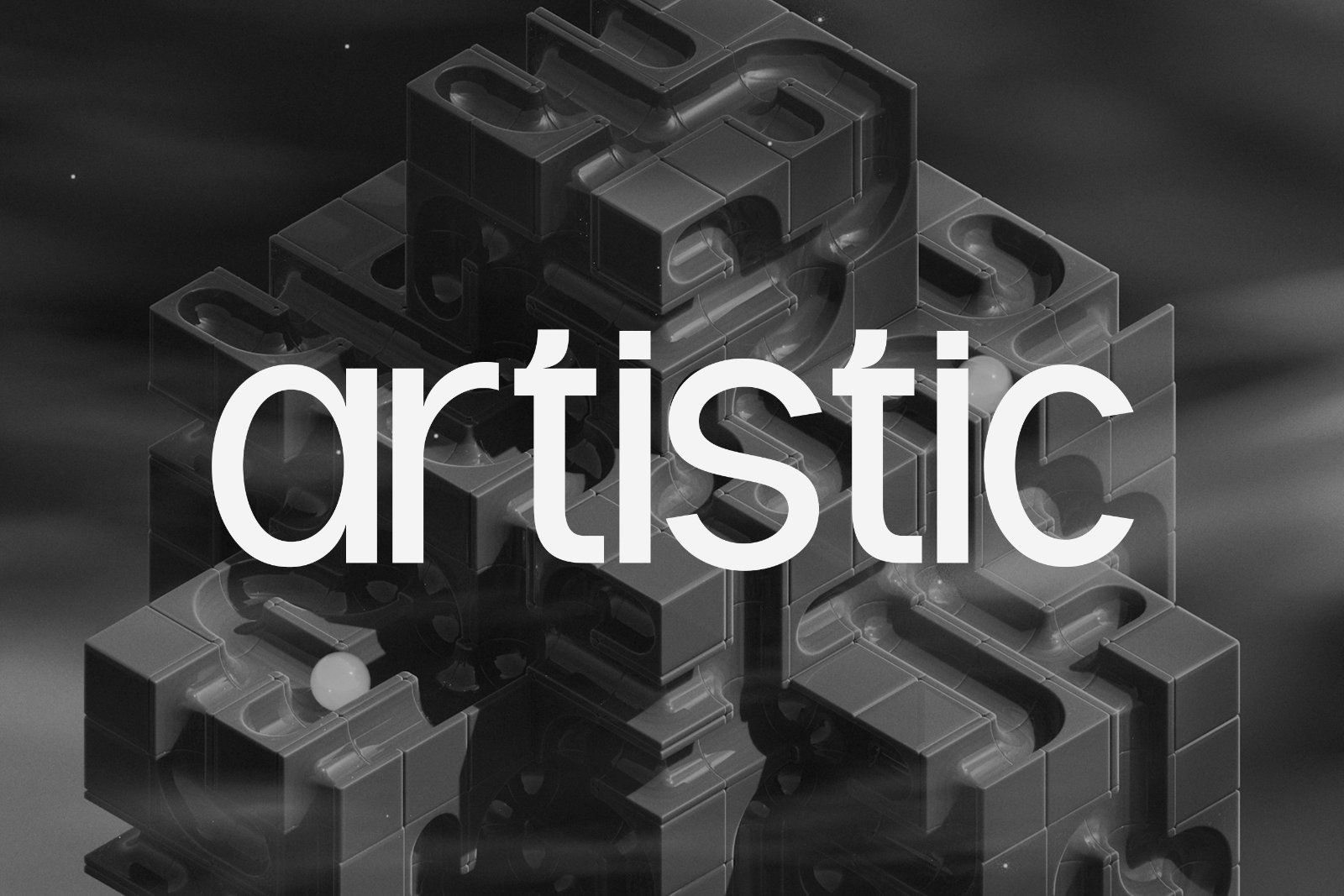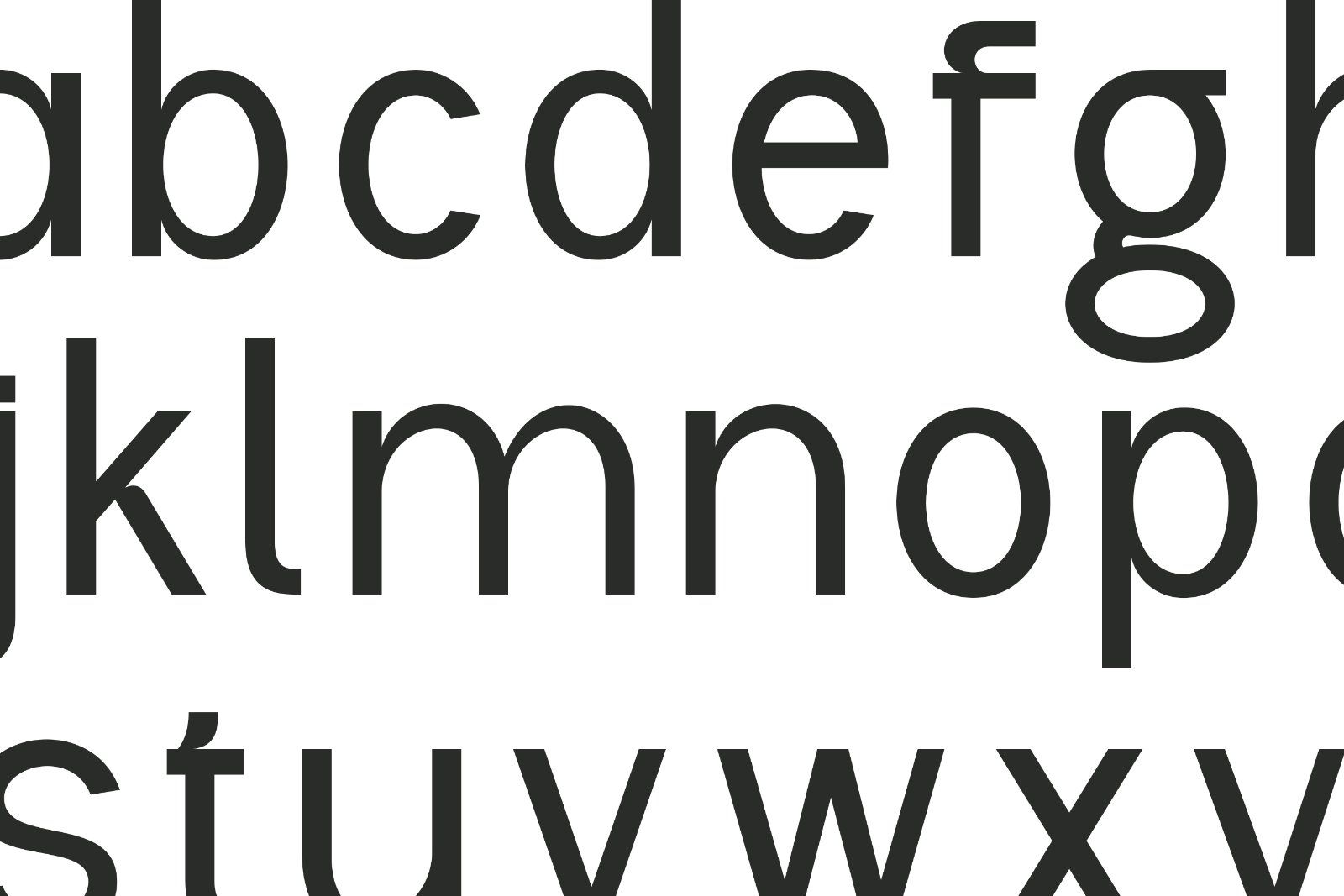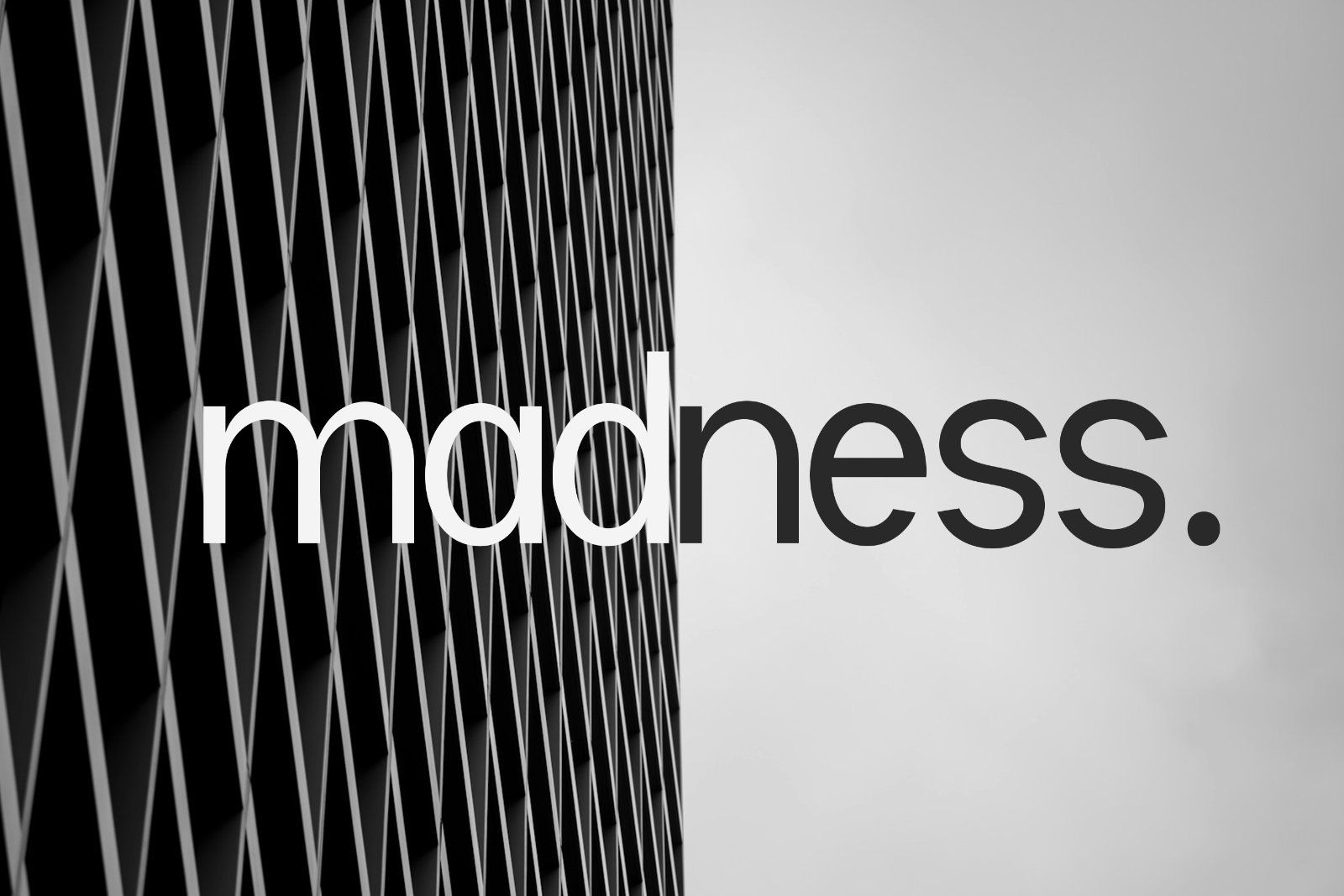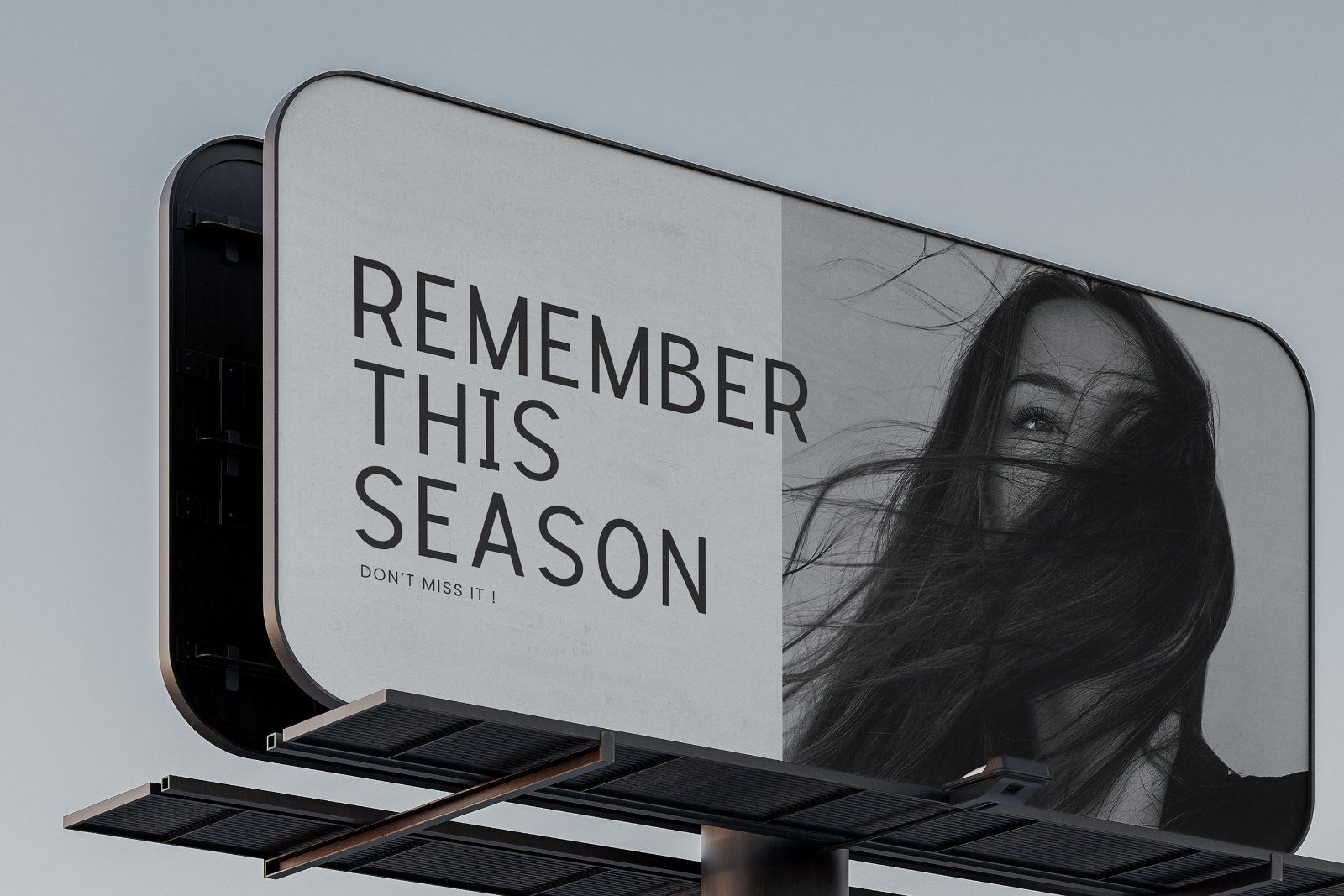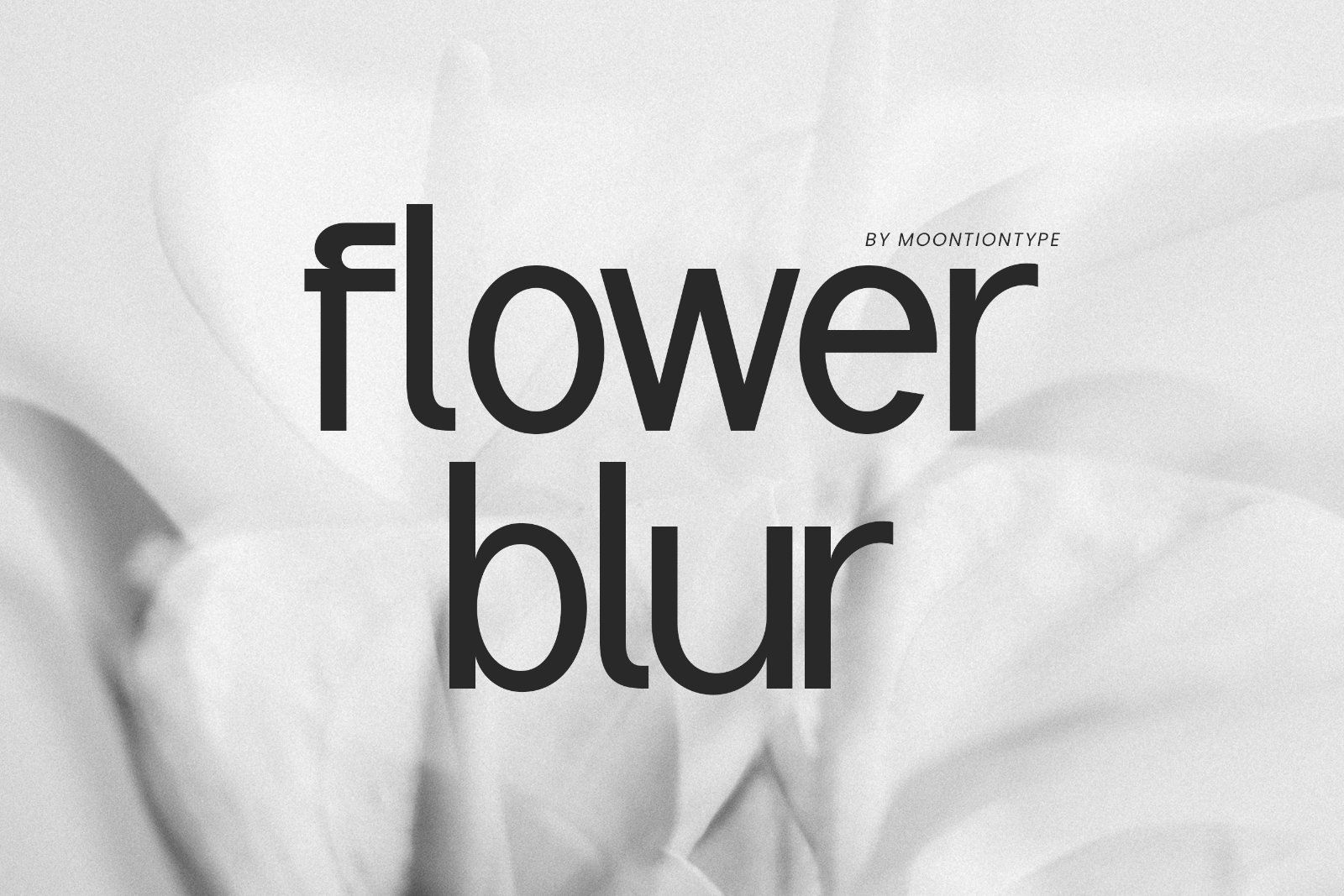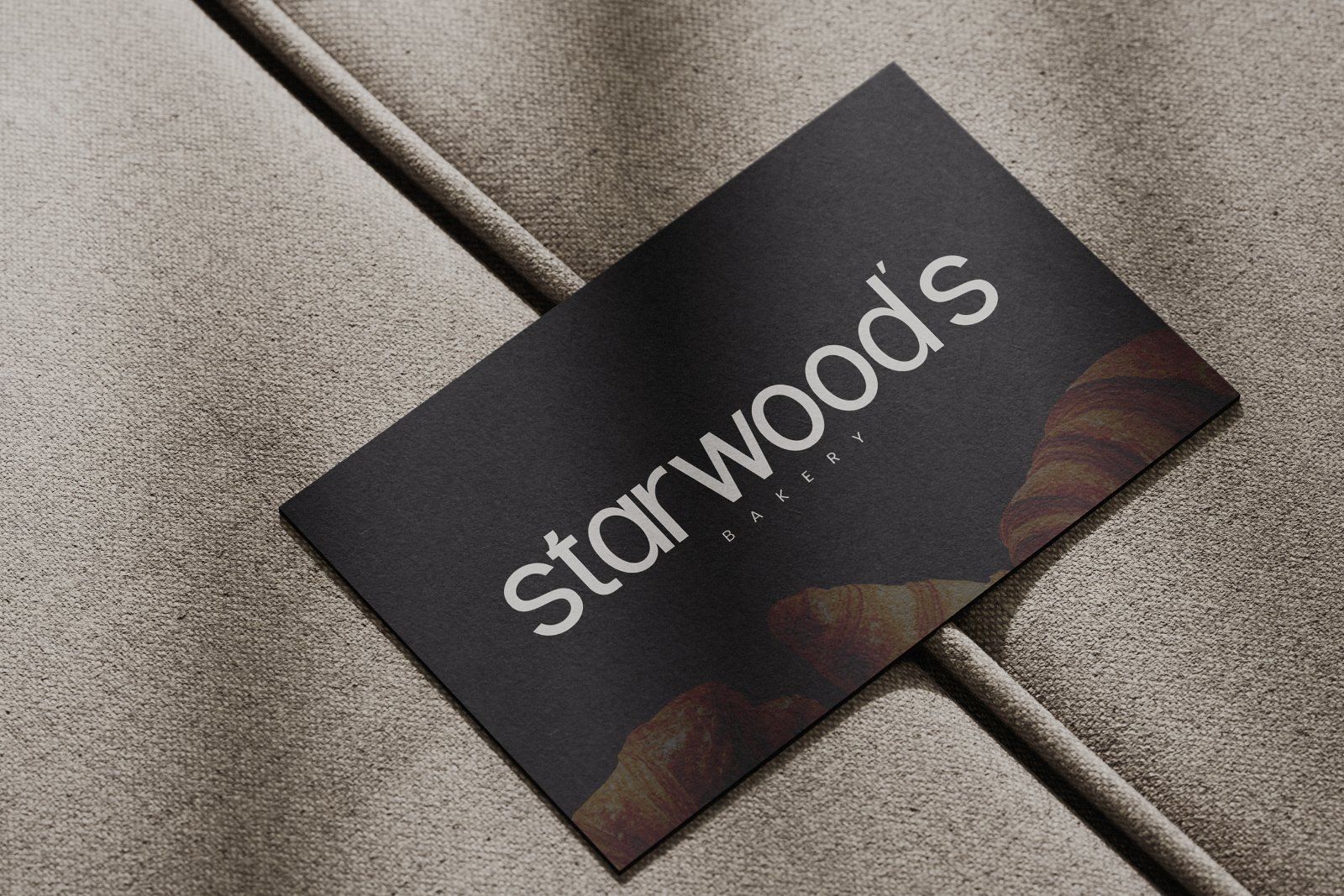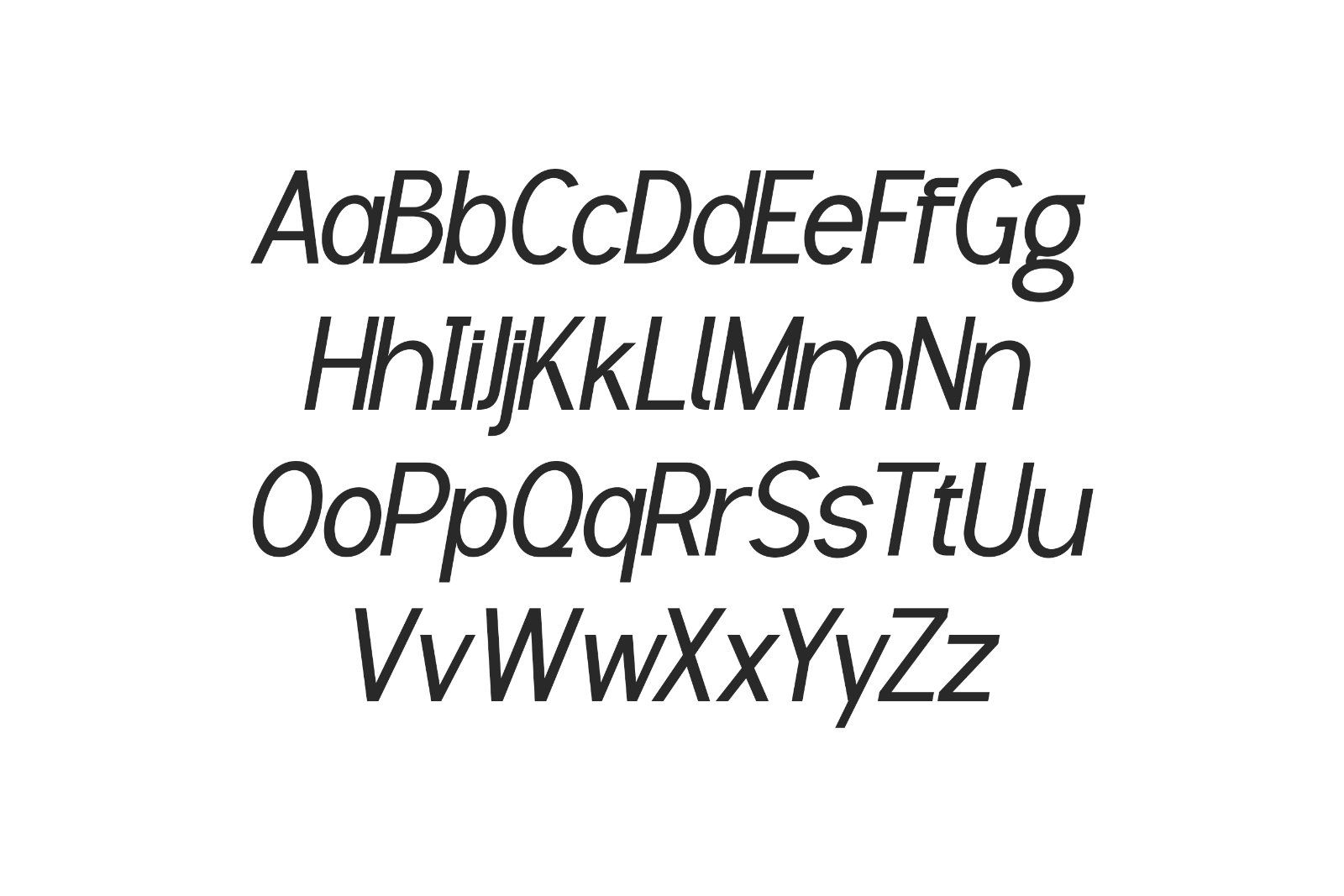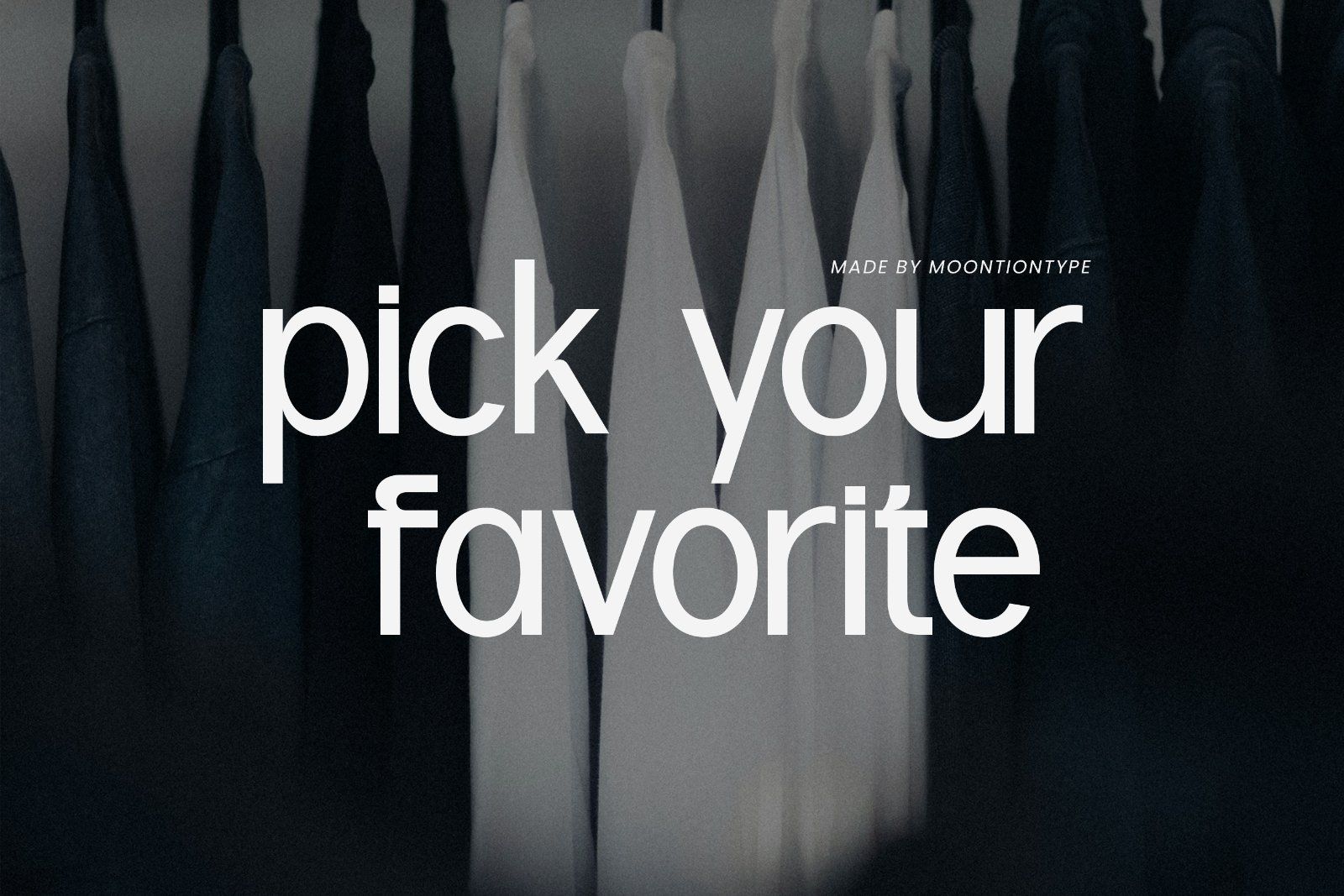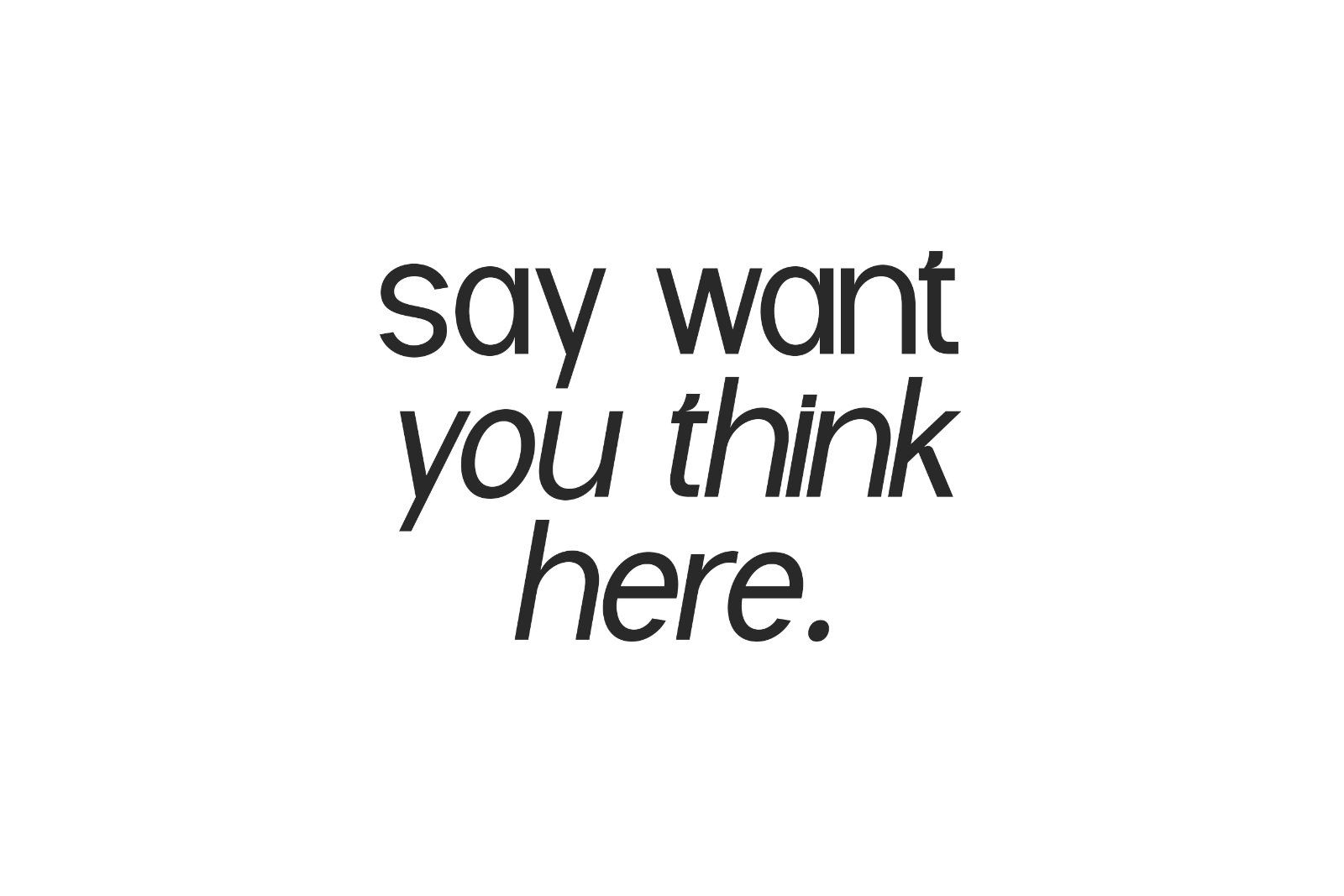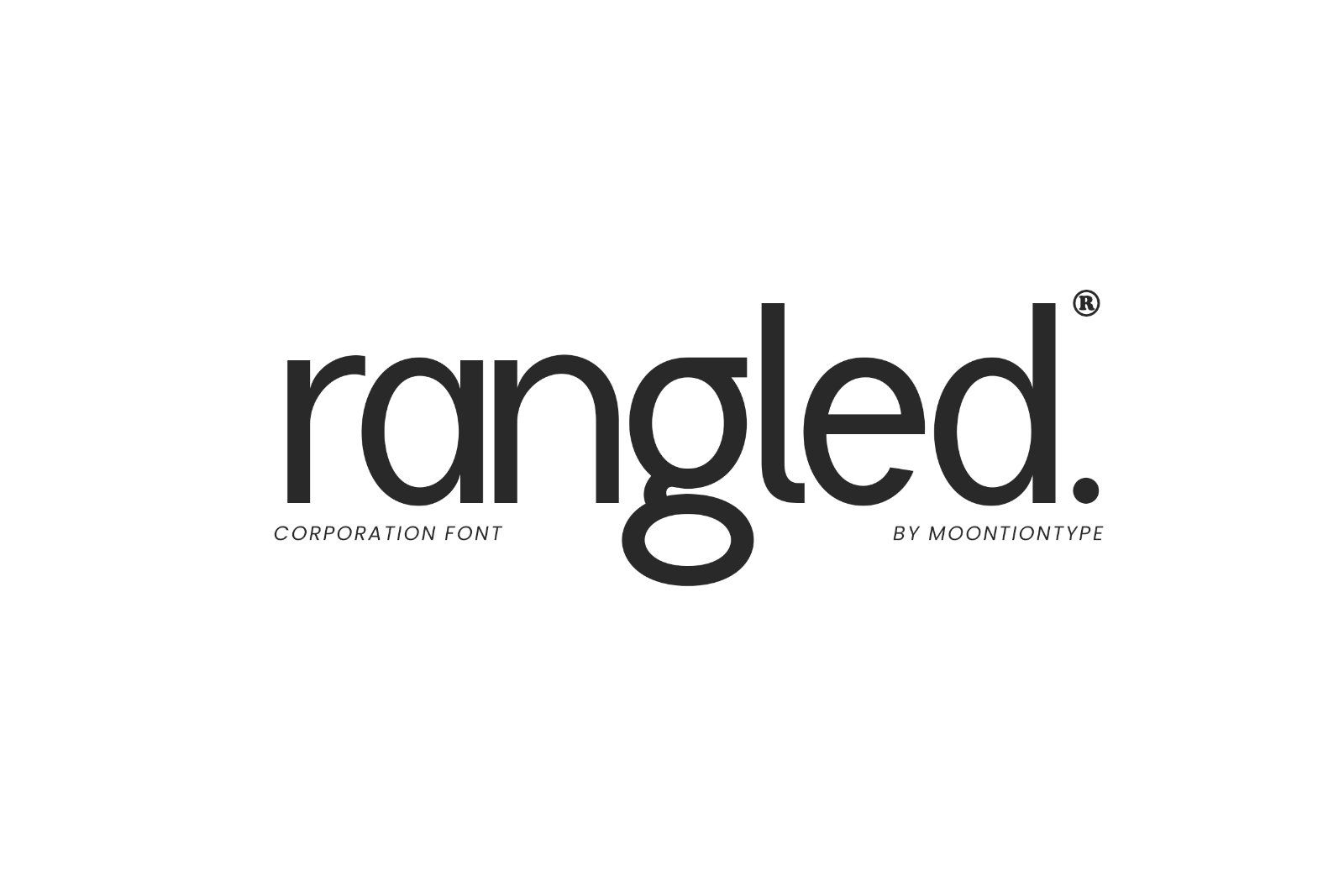
Rangled is a bold and elegant display font that brings a modern touch to your creative projects. Its unique letterforms and clean lines make it perfect for branding, logos, posters, and headlines. Whether you’re designing for fashion, lifestyle, or editorial themes, Rangled adds a confident and professional look to any layout.
Use Rangled to make your designs stand out with style and personality!